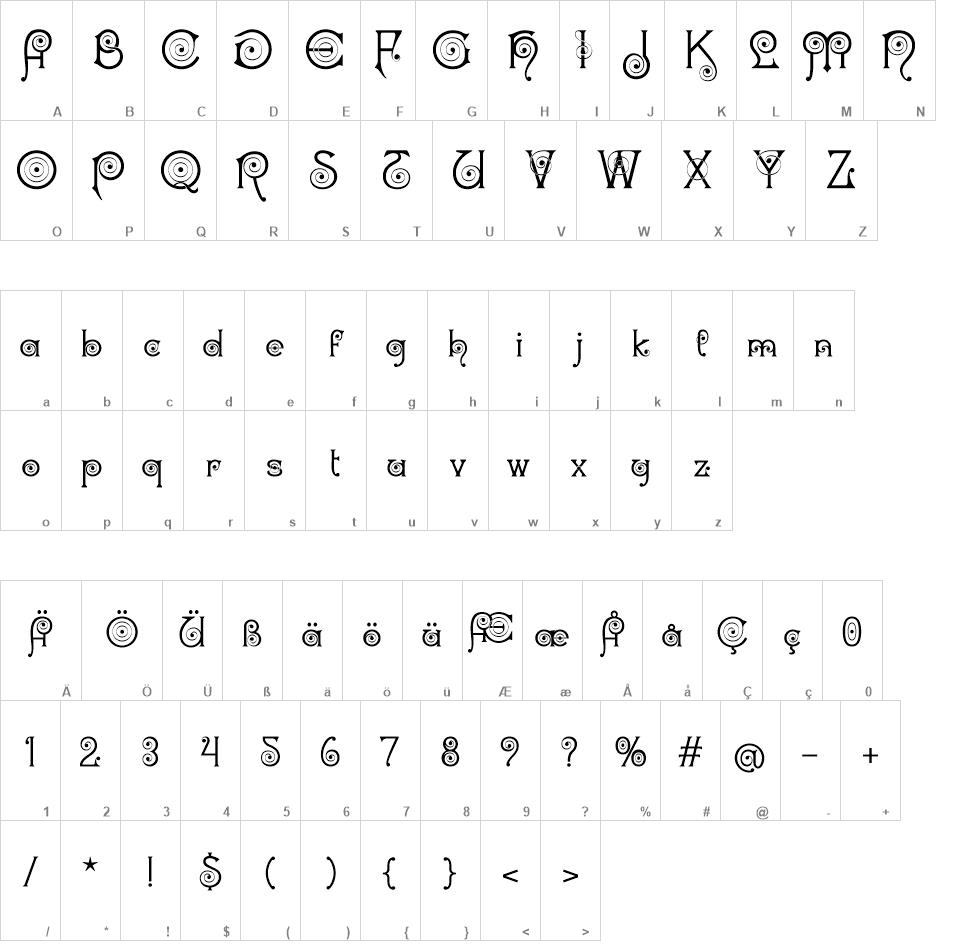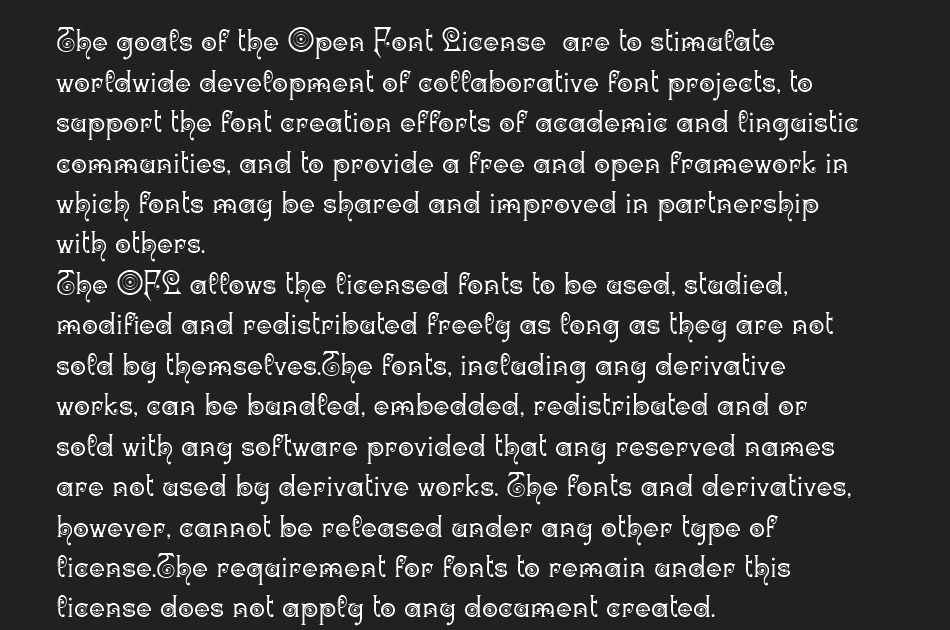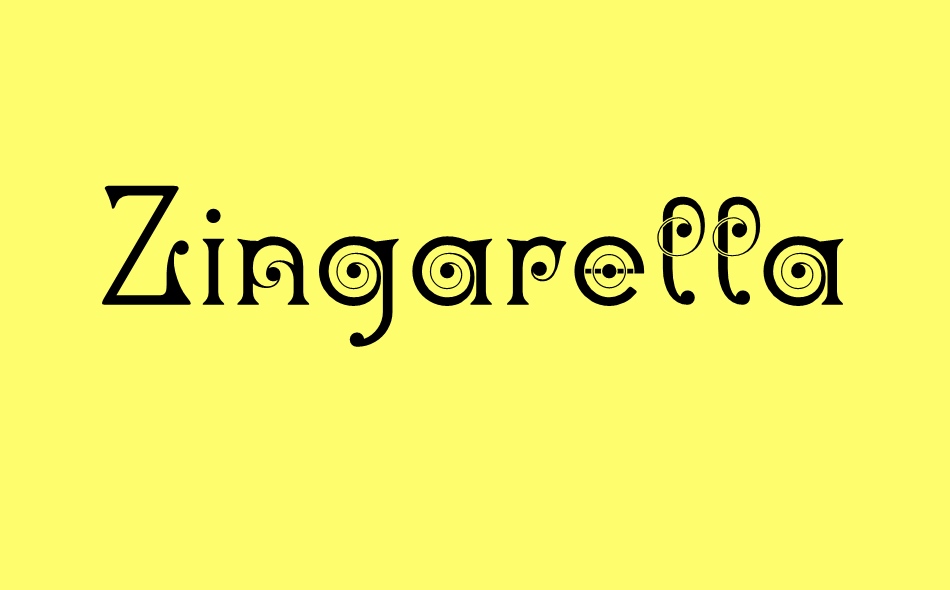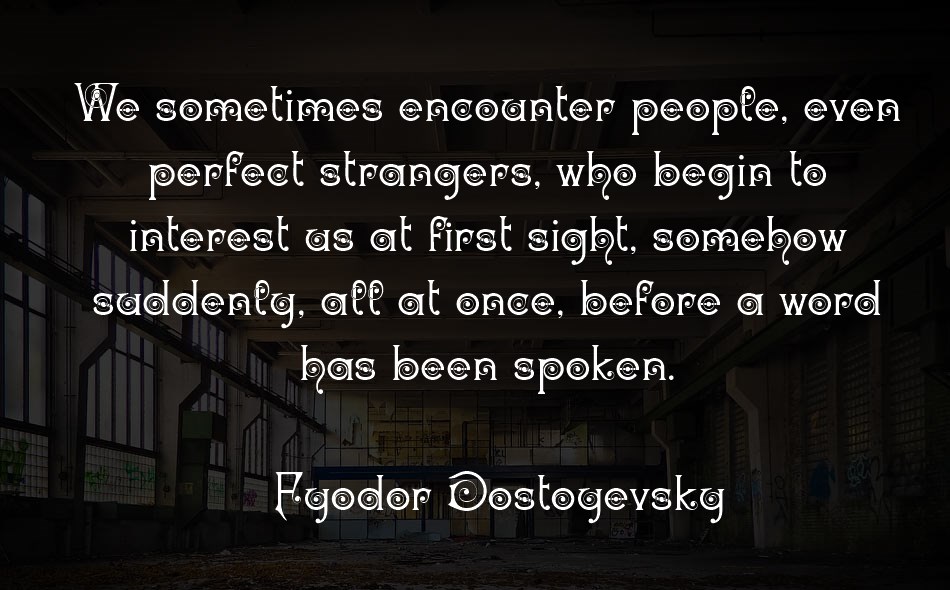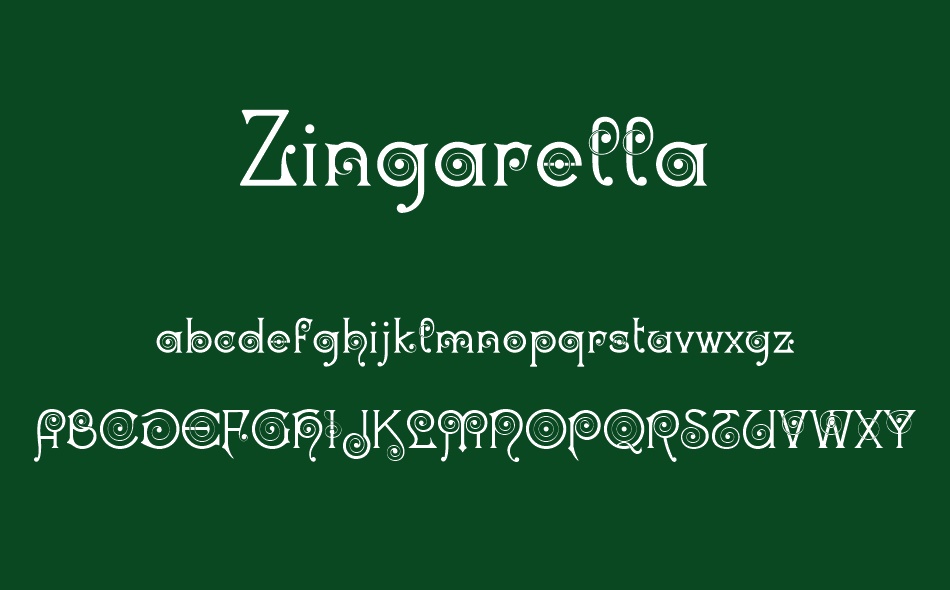
Zingarella font
Zingarella est un revival d'une fonte en capitales trouve dans Typonamenty (3e dition) de Milan Kopřiva. Publi par PLUTO Prague Publishers, 1991.
Digitalis par moi. Minuscules et autres glyphes cres par moi.
Zingarella is a revival of a Caps only font found in Typornamenty (3d edition) from Milan Kopřiva.
Published by PLUTO Prague Publishers, 1991.
Digitalisation by Yves Michel.